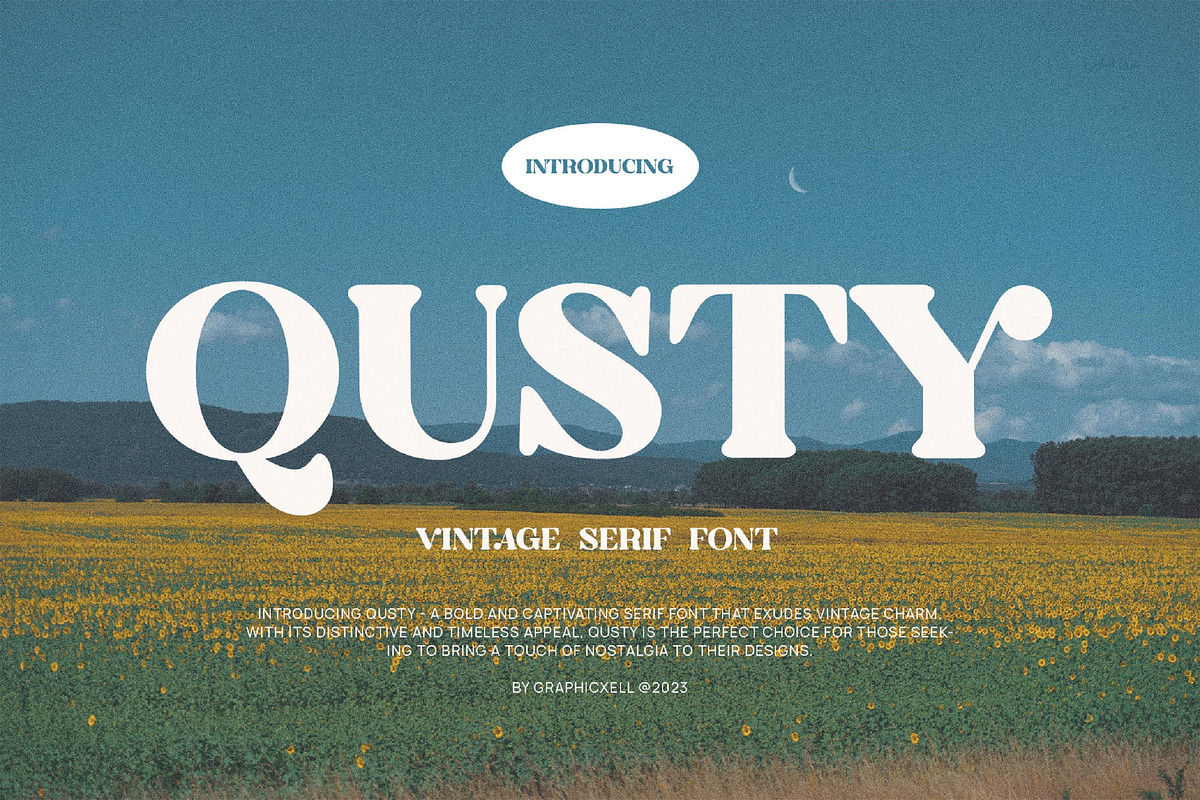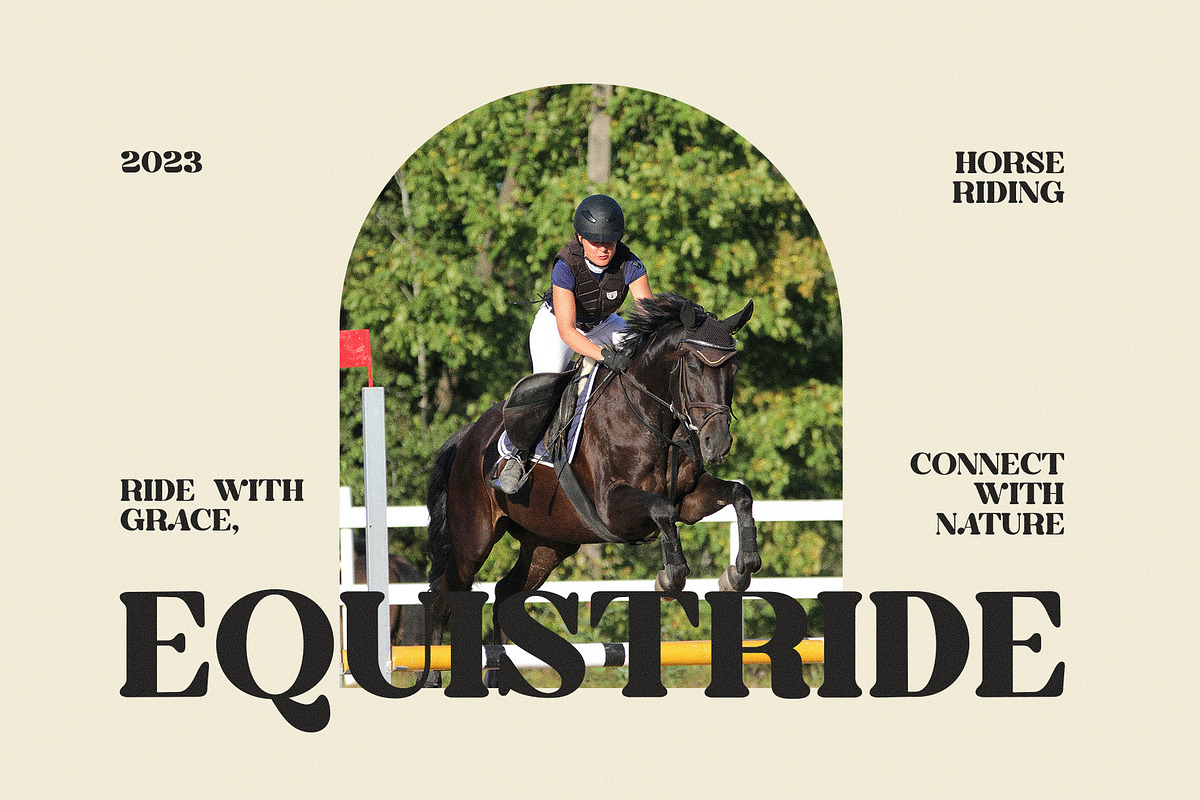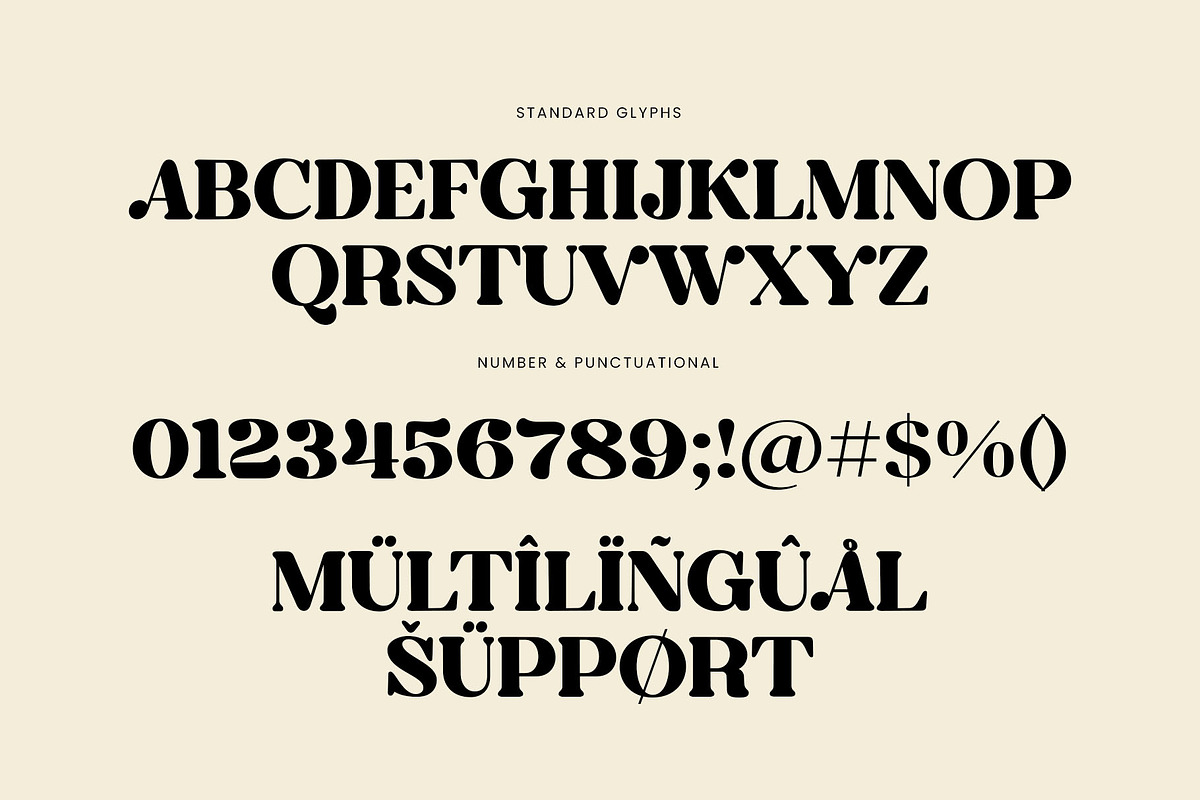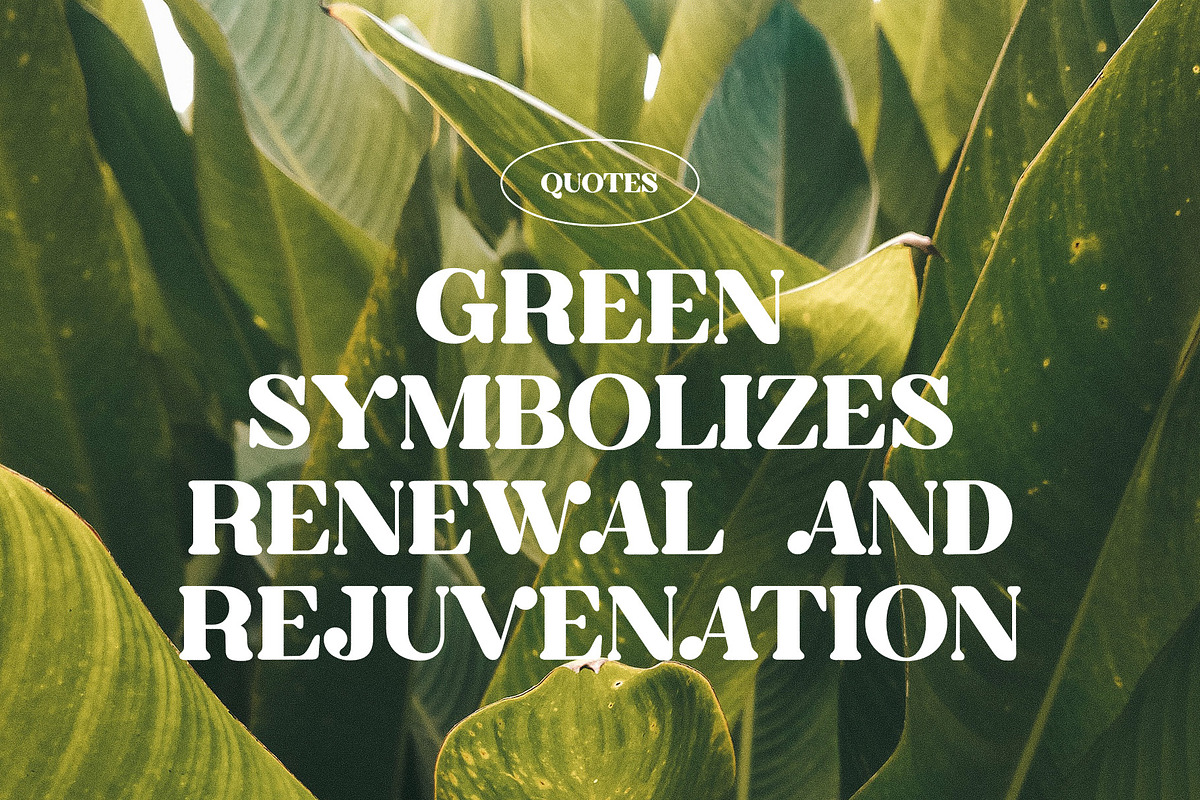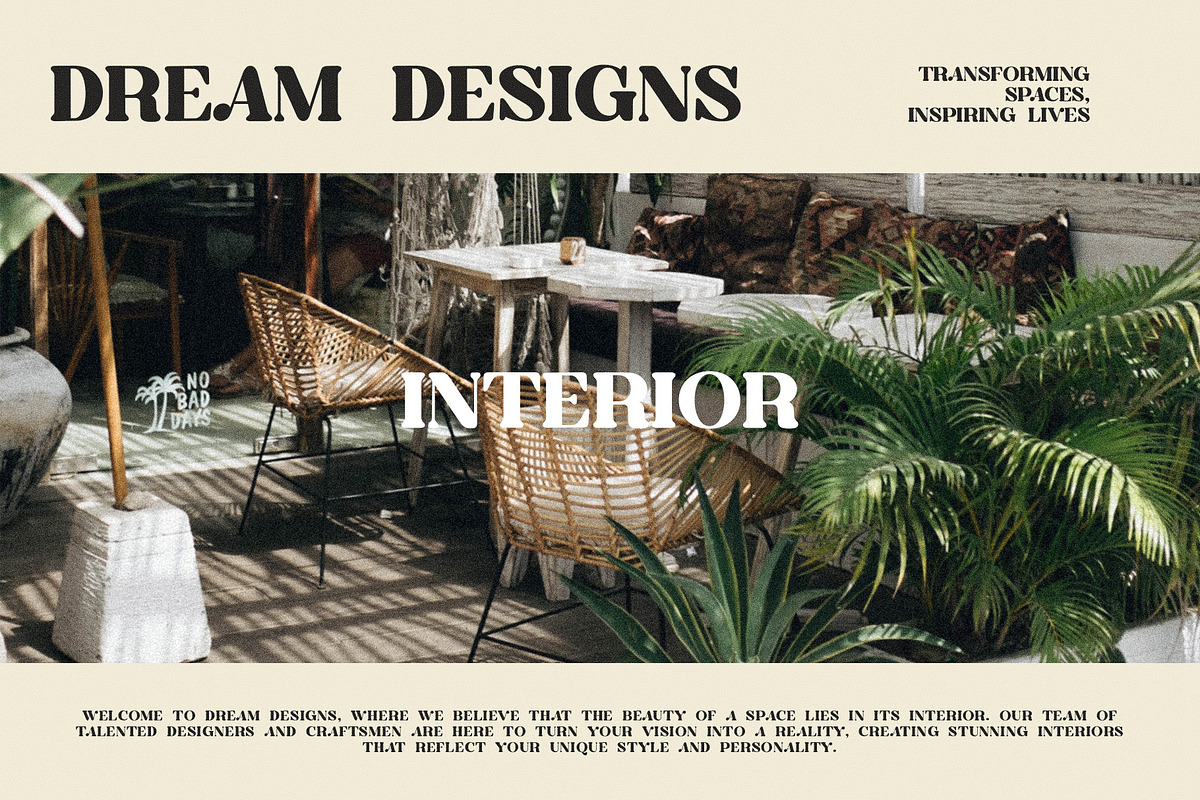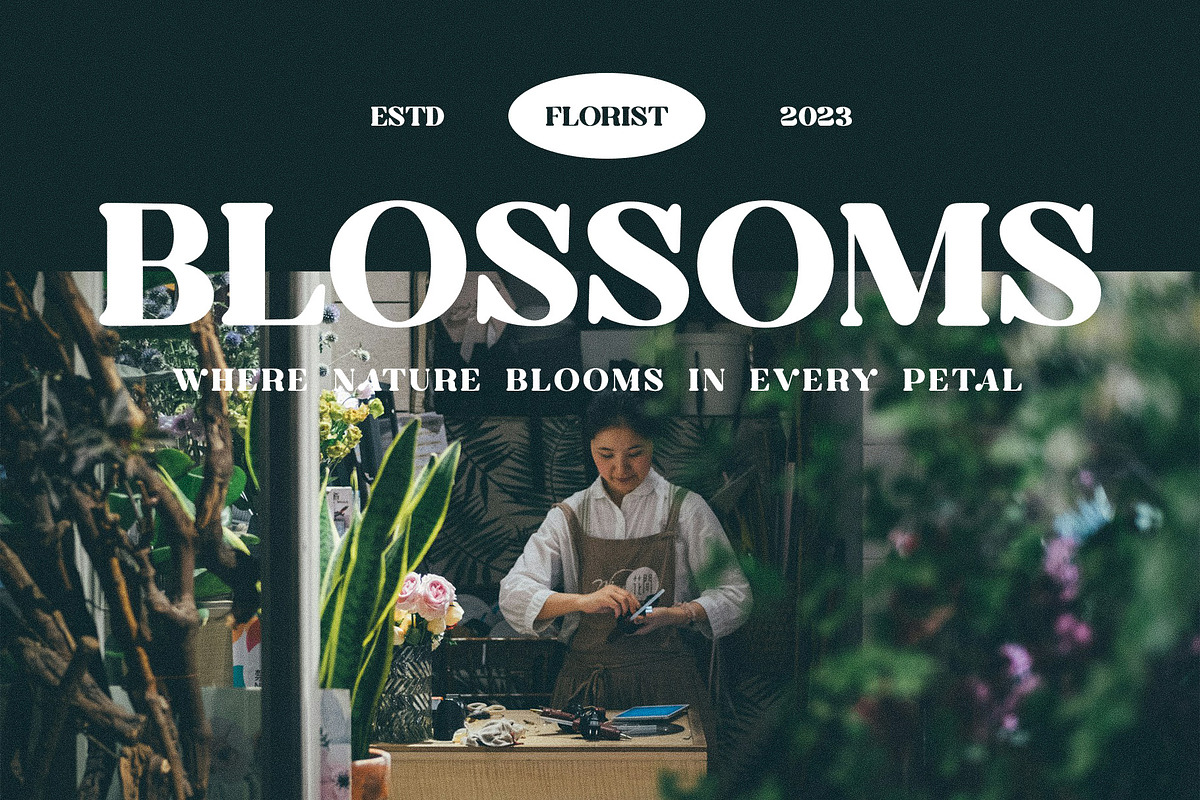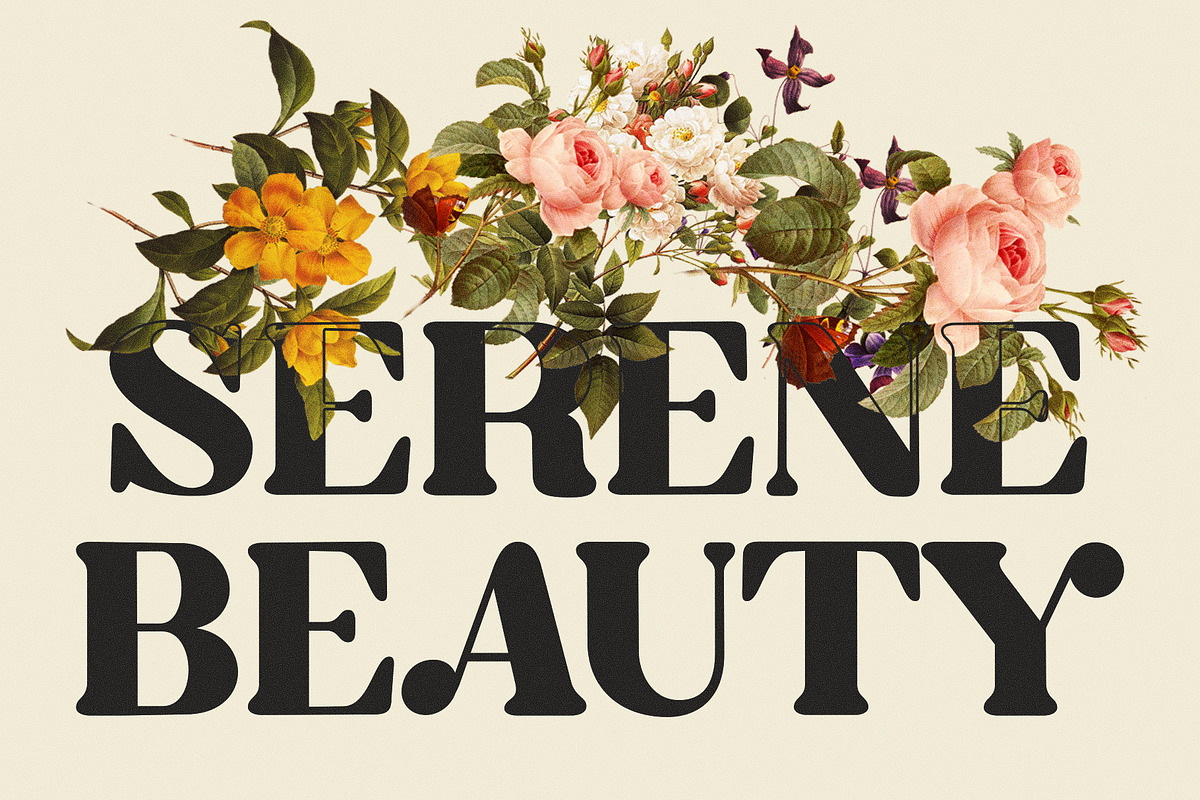
Qusty Elegant Serif Font Typeface
Qusty Elegant Serif Font Typeface is a bold serif font that comes with a vintage charm. This bold serif font has a distinctive appeal with its captivating letterforms. What makes it interesting is that the edges of the letters are rounded and not sharp like other common serif fonts. Even though the emphasis is on the thickness of the line, some parts use thinner lines without reducing the solid look and impression. Considering its striking characteristics, the Qusty Elegant Serif Font Typeface is perfect for anyone who wants to add a touch of elegance to his design. The best idea is that to use this font for product design because it will be easy to notice, read and remember. In fact, its appearance stands out more than other serif fonts. More that that, using this font for advertisements, posters, and social media posts will also be a great idea.